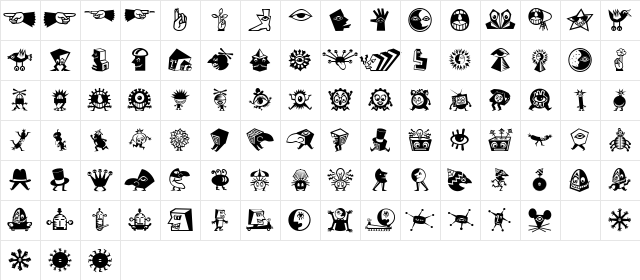
MiniPics LilCreatures Free Font
MiniPics LilCreatures
Style: LilCreatures
Design Context for MiniPics
MiniPics is a composed and adaptable typeface that performs quietly and consistently across a wide range of design contexts.